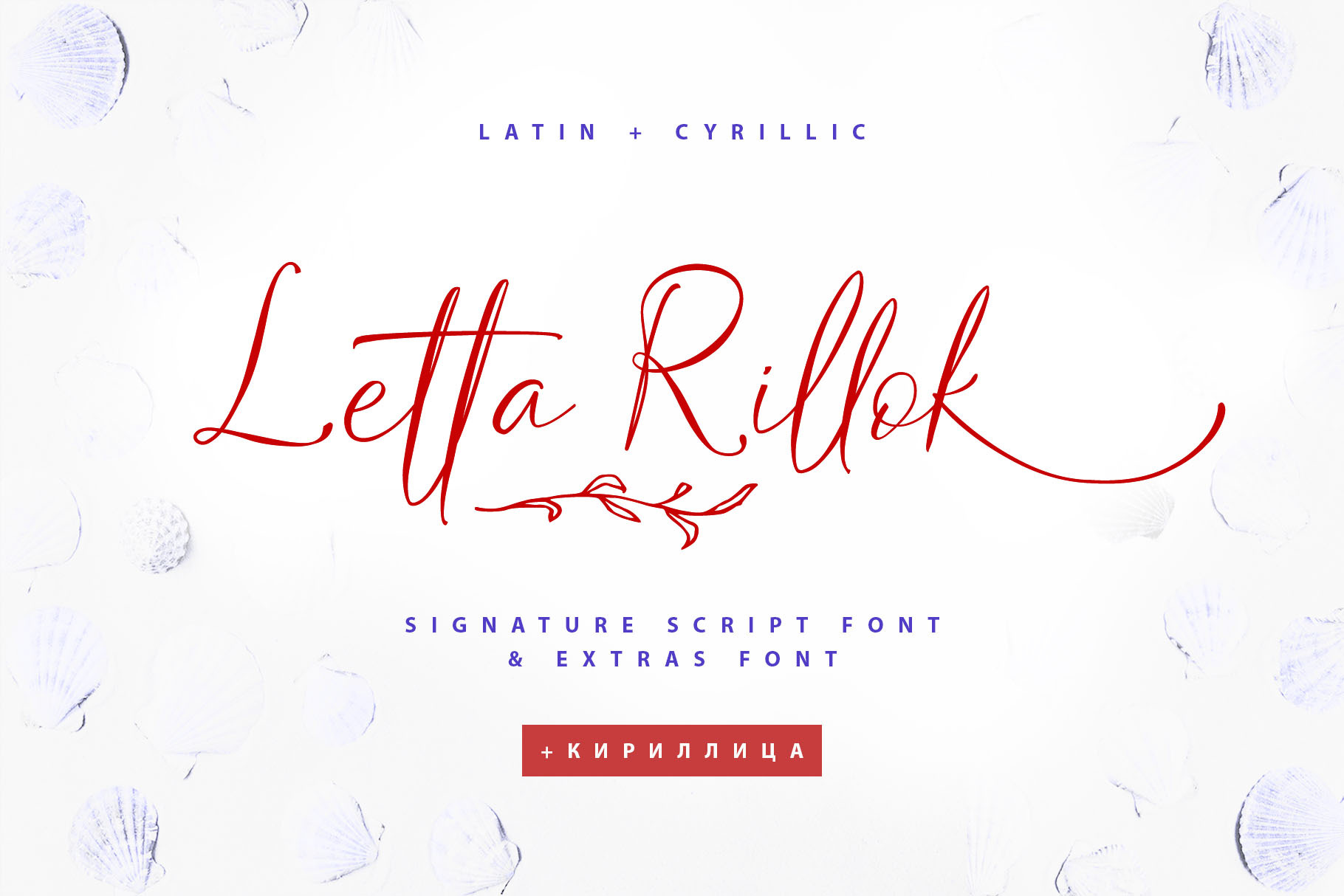
The Letta Rillok Cyrillic font is a handwritten calligraphic signature script font paired with additional symbols font with extras. It is the font pair with will be the best option for branding, logos, wedding invitations, social media, packaging, business cards, DIY projects, social media, and many others. Letta Rillok Symbols is the font with 62 lovely hand-drawn flourishes and illustrations.
Letta Rillok script Latin part contains a full set of uppercase letters and 3 full sets of lowercase letters, (standard, initial, and final forms with flourishes or teils. To make a needed form type a letter with a number such as a1, b1, c1...after that select the word and apply the Open Type Features in programs such as Adobe Illustrator, Photoshop, and others)
And 53 ligatures can be used to create a handwritten calligraphy look.
The Cyrillic part of the font contains uppercase letters and 3 complete sets of lowercase letters, (standard, initial, and final form. To make a needed form type a letter with a number such as a1, б1 в1... After that select the word and apply the Open Type Features in programmes such as Adobe Illustrator, Photoshop, and others)
Letta Rillok Symbols is a font with over 36 hand-drawn elements, floral illustrations, and swashes and can help to make your design unique and matchless. Combine and merge swashes and illustrations to create your own designs and make borders, frames, dividers, logos, and more (just use A-Z or a-z and 0-9 keys in the included Letta Rillok Symbols font). A different symbol is assigned to each uppercase or lowercase standard character, so you do not need graphics software, just type the letter you need.